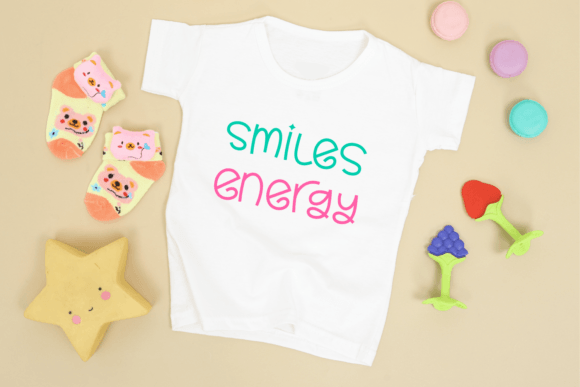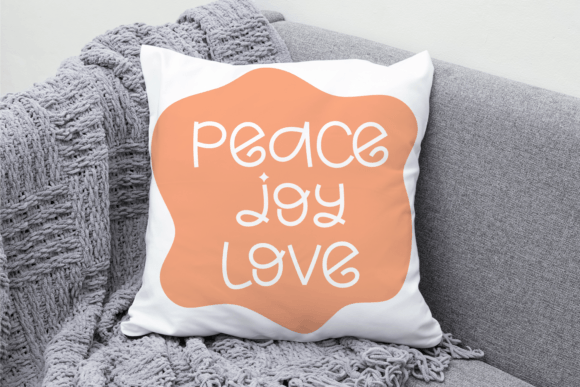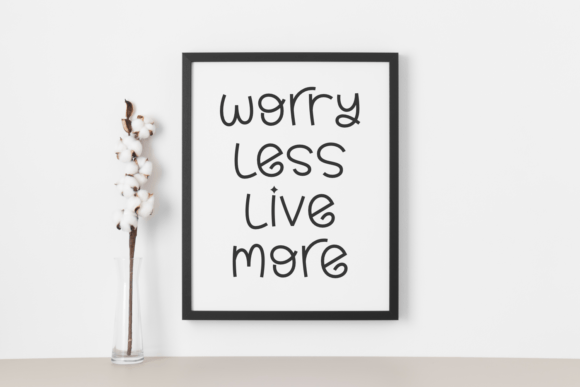
Introduction to Making Wonder Font
Immerse yourself in the enchanting charm of Making Wonder, a whimsical handwritten font.
Ideal for festivity greeting cards, charming gift labels, and an array of holiday-themed ventures, Making Wonder effortlessly imbues your text with joyful and nostalgic vibes Its playful strokes illuminate every word, sparking a celebration of memory and cheer in every project.